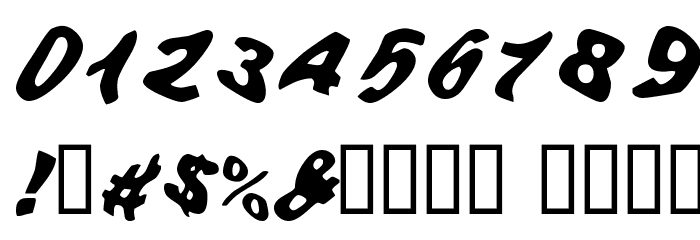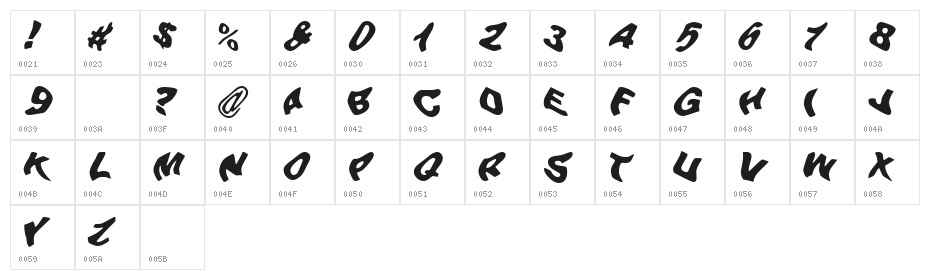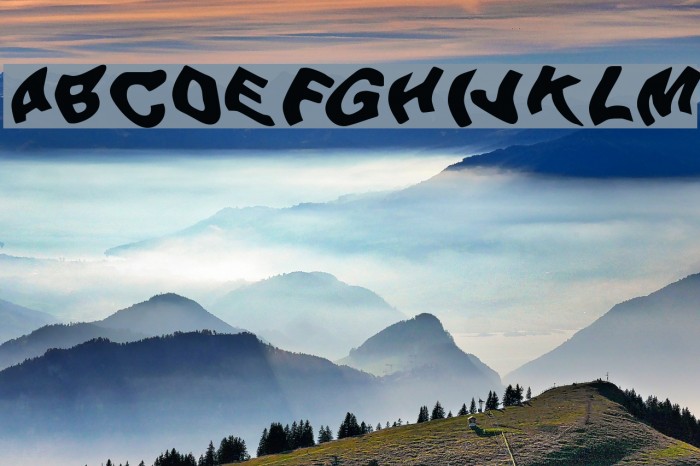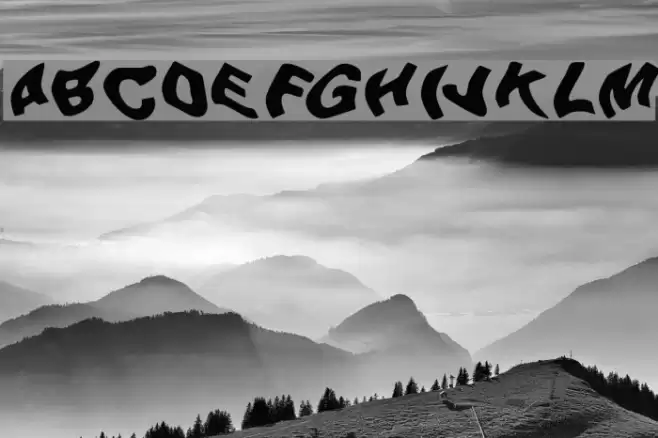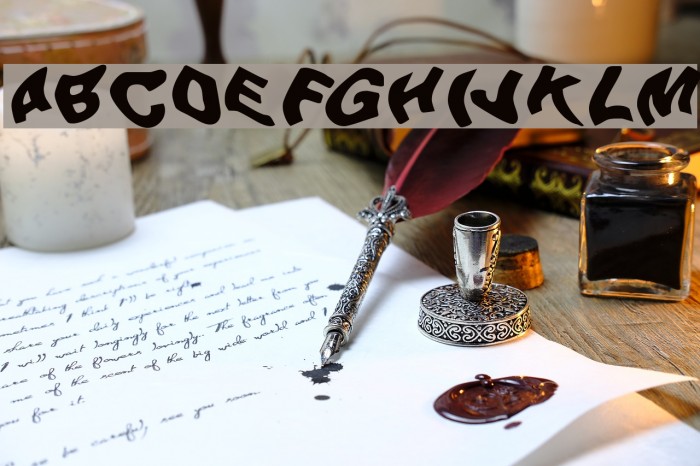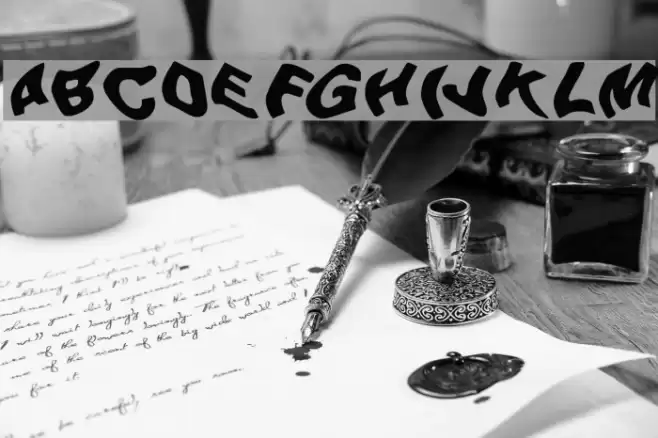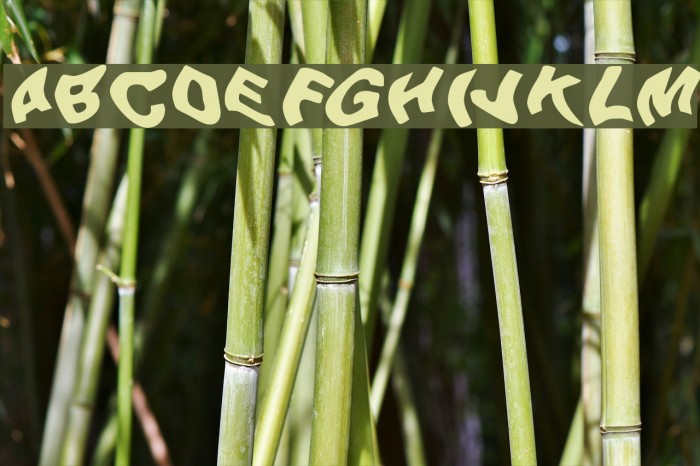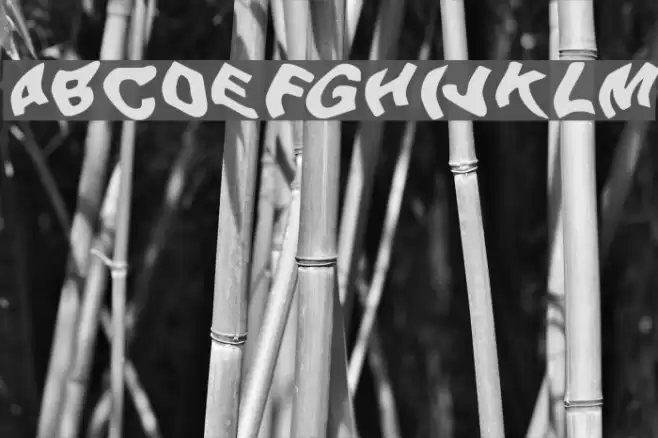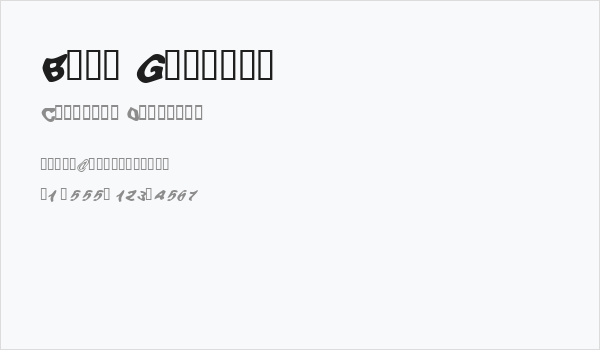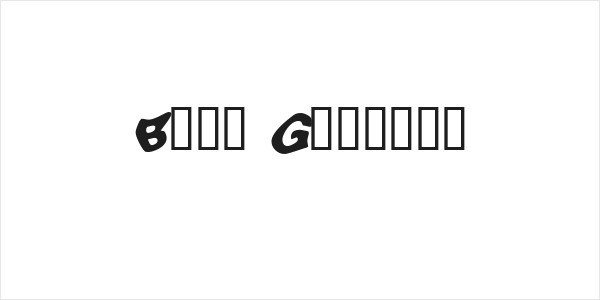
Beer Goggles Font
Beer Goggles Description
This font features a playful and bold design with a wavy, distorted appearance that gives it a fun and whimsical feel. The uppercase and lowercase letters are characterized by their exaggerated curves and irregular shapes, creating a sense of movement and energy. The numbers and special characters follow the same lively style, making the font suitable for creative and informal applications. Its unique style is reminiscent of hand-drawn or graffiti art, adding a touch of personality and flair to any project. The font's boldness ensures it stands out, while the irregularity of the characters adds a dynamic and engaging visual element.
| Overall Style | Playful, Whimsical, Creative |
| Proposed Projects | Ideal for posters, party invitations, children's book covers, and playful branding. |